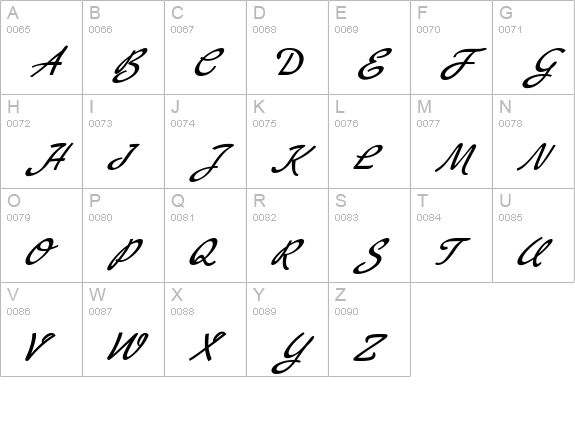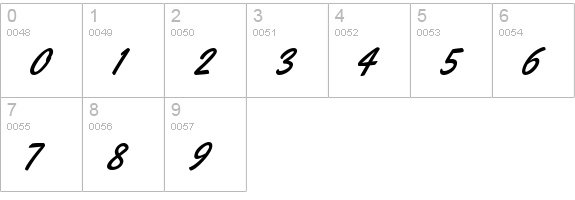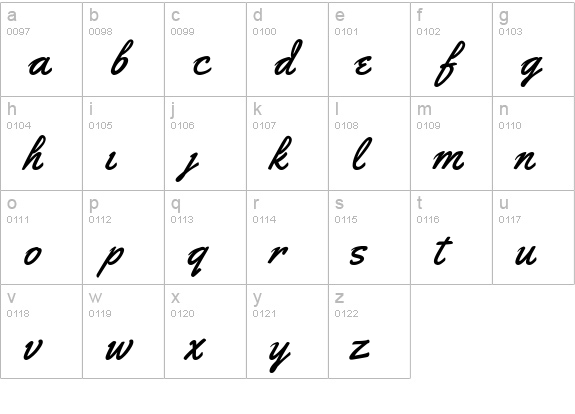
DURANGO FONT Font Details
DURANGO FONT is a free for personal use font in the Script category, designed by johndesign540. It has been downloaded 45 times and is available for Windows, Mac and Linux.
Introducing the exquisite Durango Font, a stunning typeface that effortlessly blends modern sophistication with a touch of classic elegance. Designed with meticulous attention to detail, Durango Font exudes a timeless charm that will elevate any design project to new heights.
This versatile font is perfect for a wide range of applications, from branding and packaging to invitations and social media graphics. Its clean lines and stylish curves make it a standout choice for any creative endeavor.